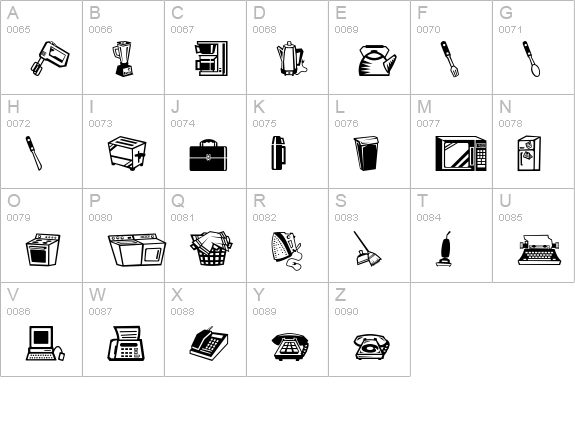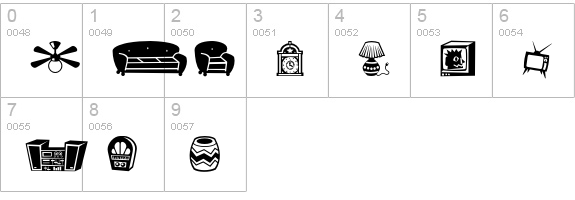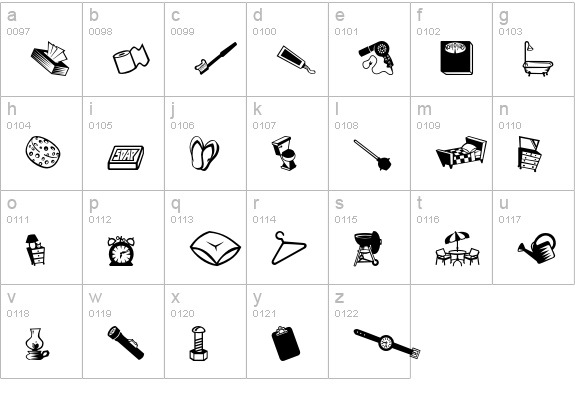
MiniPics-LilStuff Font Details
MiniPics-LilStuff font is a charming and playful typeface that is perfect for adding a touch of whimsy to your designs. With its fun and quirky style, this font is sure to stand out and capture the attention of your audience. Whether you're creating invitations, greeting cards, or social media graphics, MiniPics-LilStuff is a versatile choice that will add a unique flair to your projects. The best part? MiniPics-LilStuff font is completely free to download at FontsMarket.com. This means you can easily access this delightful font and start using it in your designs right away. Don't miss out on the opportunity to enhance your creations with the adorable MiniPics-LilStuff font – download it today and let your creativity shine!